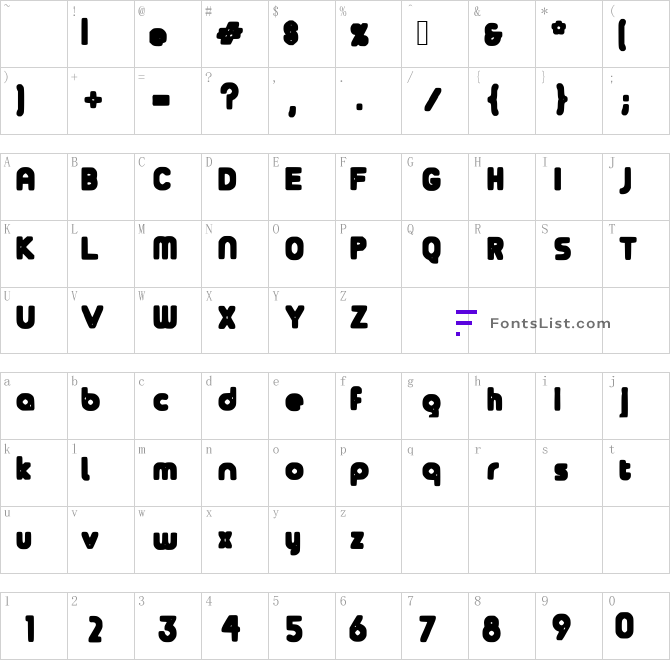
Bazyl.ttf is a very beautiful artistic font, Bazyl.ttf is widely used in the design and printing of various books and pictures,Bazyl.ttf has a strong visual impact,Bazyl.ttf is a commonly used font in newspapers, magazines and books, and is used in posters, e-commerce Poster design, store design, logo design, font design and other fields.Bazyl.